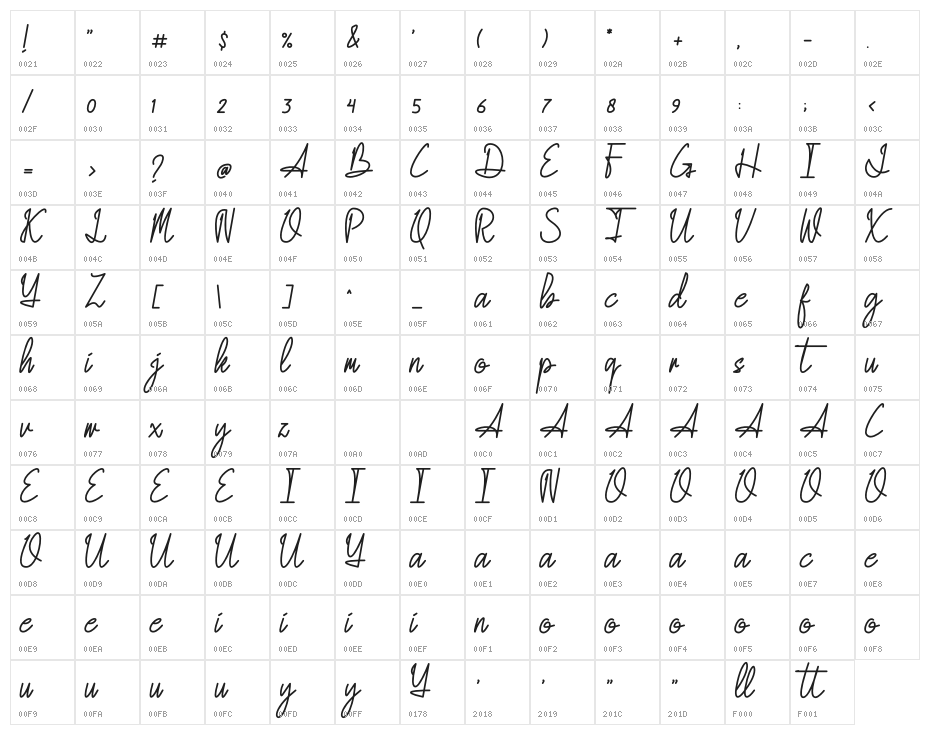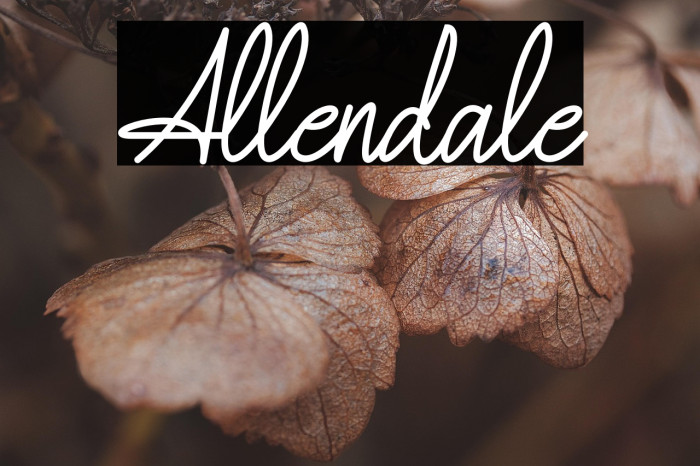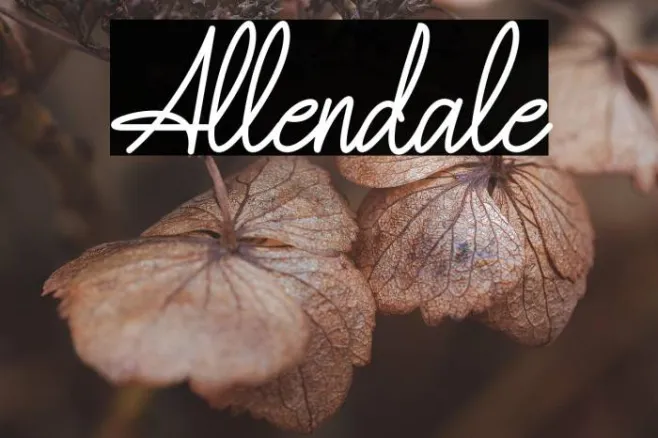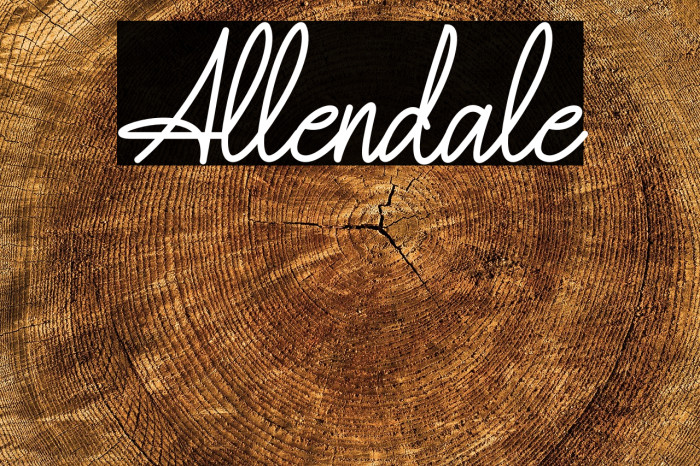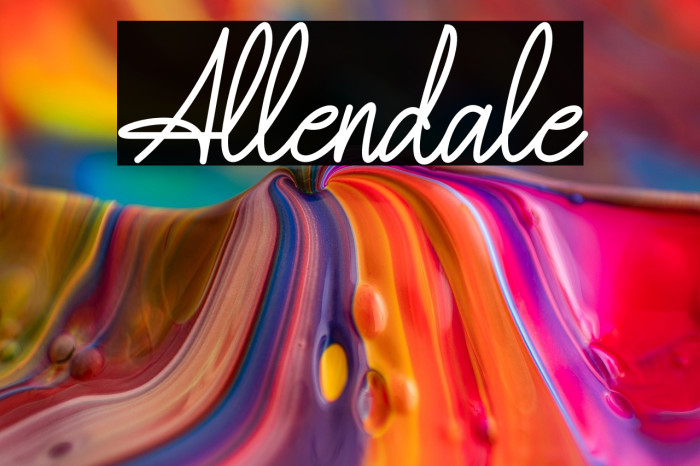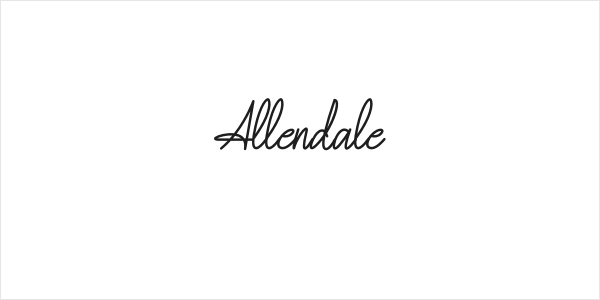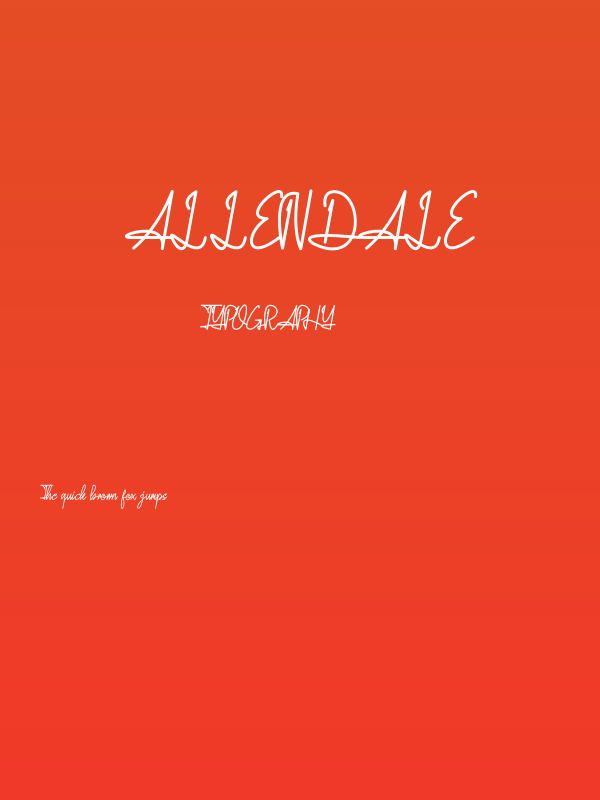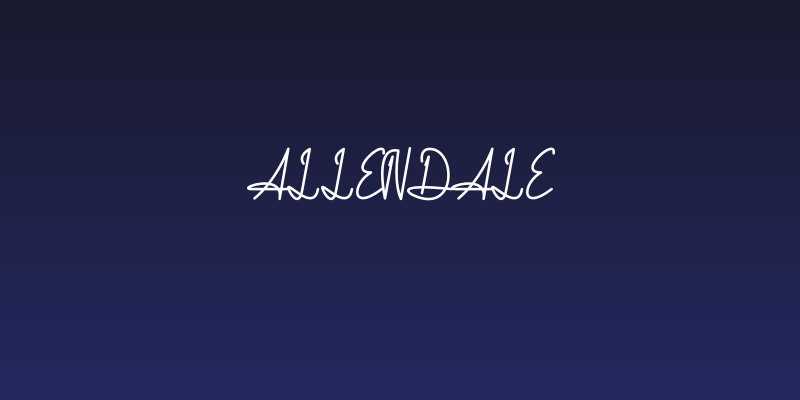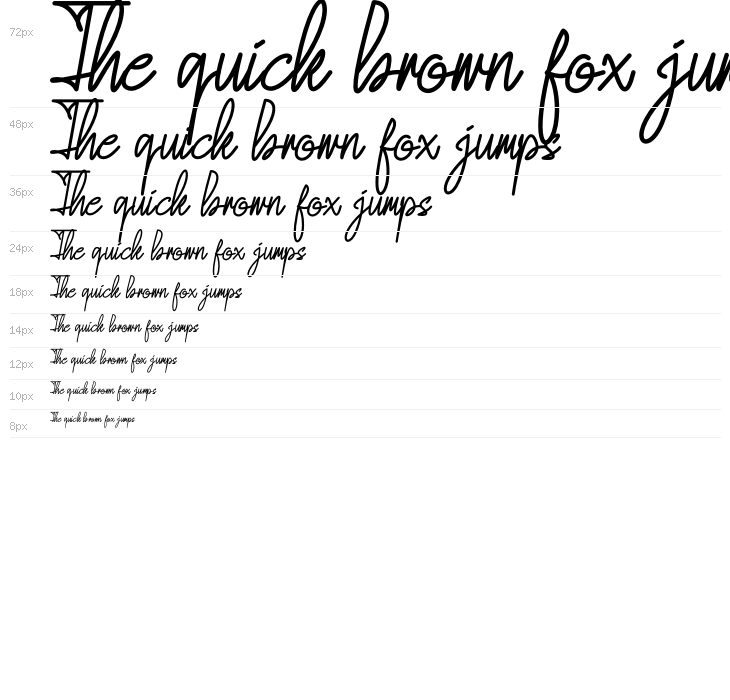
Allendale Font
Allendale Description
This font features an elegant and flowing script style, characterized by its smooth, cursive letterforms. The uppercase letters are tall and slightly slanted, with intricate loops and swirls that add a touch of sophistication. The lowercase letters maintain a consistent flow, connecting seamlessly in a way that mimics natural handwriting. Numbers and special characters are designed to complement the overall script style, maintaining the same fluidity and grace. The font's aesthetic is both classic and modern, making it versatile for various design applications.
| Overall Style | Elegant, Classic |
| Use Case | Logos, Invitations, Personal stationery |
| Proposed Projects | Ideal for wedding invitations, elegant branding, personal stationery, and artistic projects. |